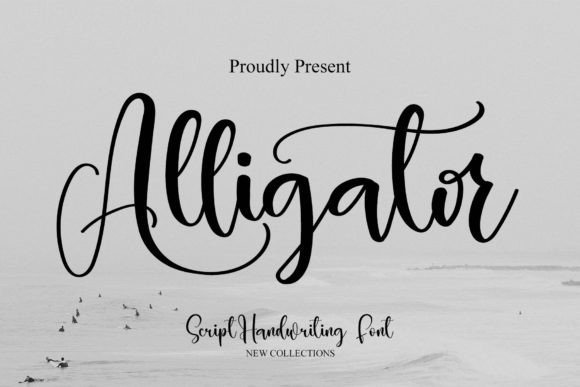
The Perfect Match: When Design Meets Whimsy
There’s something magical about the moment when a design concept clicks into place. The lines align, the colors pop, and the entire project comes together in perfect harmony. For designers, this moment is the culmination of creativity and skill, and it’s what makes all the hard work worth it. But what happens when you need to take that design to the next level, adding a touch of elegance and whimsy that sets it apart from the rest?
Enter the Alligator Font, a sweet and cursive handwritten font that’s sure to bring a smile to your face. With its gentle curves and romantic flair, this font is perfect for branding, logos, wedding stationery, and any other project that needs a touch of sophistication and playfulness. As a designer, you know the value of having the right tools at your disposal – and the Alligator Font is a valuable addition to any design arsenal.
Alligator Font Key Features
- Unique Characteristics: The Alligator Font features a unique, hand-drawn design with a bold and playful feel, making it ideal for creative and attention-grabbing projects.
- Font Style: The font comes in two styles: Regular and Bold, providing options for varying levels of emphasis and visual impact.
- Character Set: The font includes a comprehensive character set, including Latin, Cyrillic, and Greek alphabets, as well as punctuation and special characters.
Designer Review: Alligator Font
When I first saw the Alligator Font, I was immediately drawn to its unique, hand-drawn feel ✨. The font is perfect for designers looking to add a touch of whimsy and personality to their projects. The subtle imperfections and rough edges give the font a charming, organic look that’s sure to stand out.
One of the things I appreciate most about Alligator Font is its versatility ✨. It’s suitable for a wide range of applications, from digital products and marketing materials to print-based projects like posters and business cards. The font also works well in both uppercase and lowercase, making it easy to use in various contexts.
However, there are some limitations to consider ⚠️. The font may not be suitable for formal or professional projects, as its hand-drawn nature can give it a more casual, playful feel. Additionally, the font’s bold and italic styles may not be as seamless as the regular style, which can be a drawback for some designers.
Overall, I’d give Alligator Font 4 out of 5 stars ✨. While it may not be perfect for every project, its unique charm and versatility make it a great choice for designers looking to add some personality to their work.
- Unique, hand-drawn feel
- Perfect for whimsical and playful projects
- Suitable for digital and print-based projects
- May not be suitable for formal or professional projects
- Bold and italic styles may not be seamless
Alligator Font Practical Application Guide
The Alligator Font is ideal for:
- Outdoor and wildlife-themed designs.
- Adventure and travel branding.
- Edgy and bold typography.
Remember to use the Alligator Font in combination with other design elements to create a visually appealing and cohesive design.